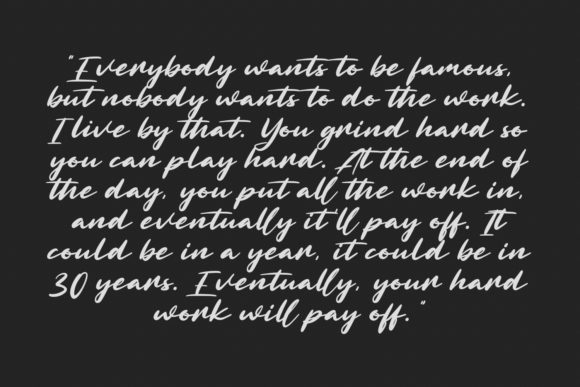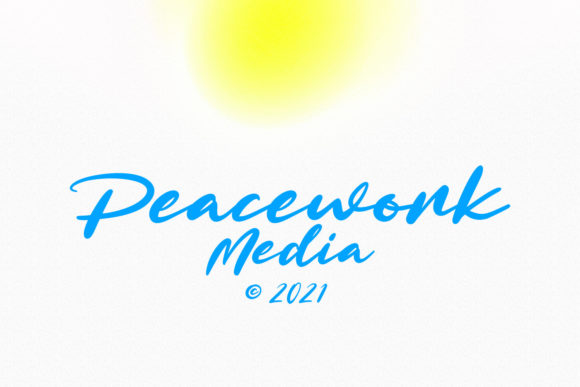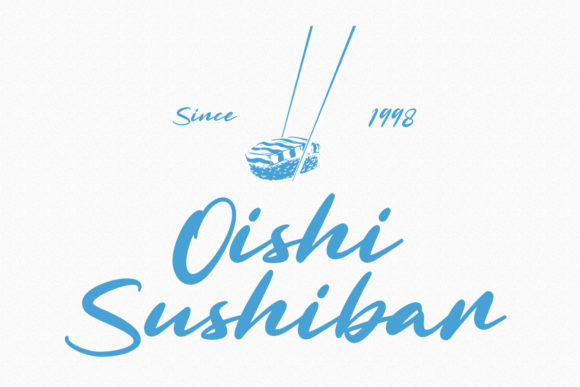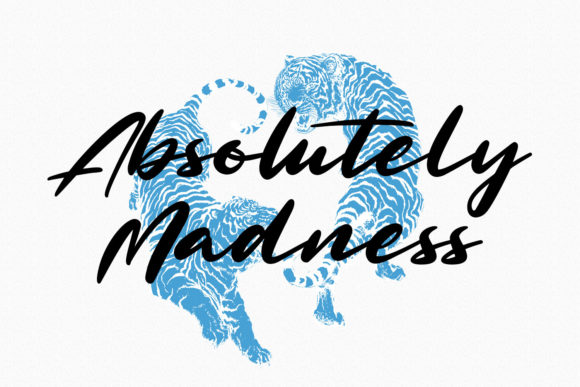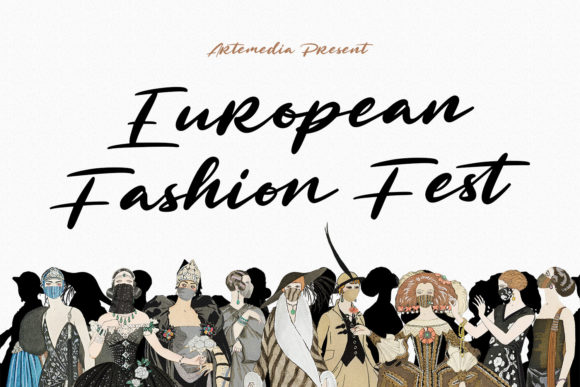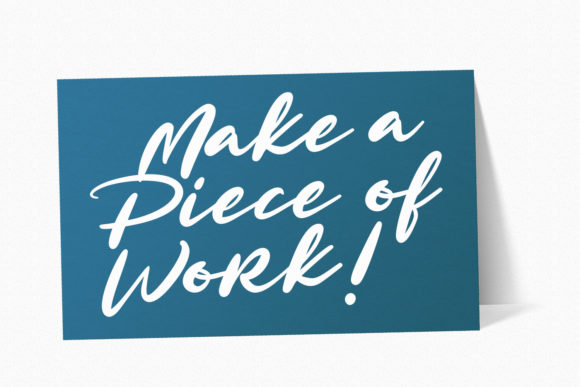
The Perfect Brushstroke: Unlocking the Power of Arttelost Script Font
There’s nothing quite like the thrill of bringing a creative idea to life. The blank page stares back at you, a canvas waiting to be filled with color, texture, and personality. And then, it happens – the perfect brushstroke, the perfect word, the perfect phrase. It’s a moment of pure magic, and one that designers know all too well.
For those seeking to add a touch of whimsy and elegance to their designs, the Arttelost Script Font is a game-changer. This trendy handwritten font is the perfect tool for bringing a unique voice and perspective to any project. Whether you’re working on a branding campaign, a social media post, or a marketing brochure, the Arttelost Script Font has the potential to elevate your creations and leave a lasting impression.
Key Features of Arttelost Script Font
- Unique Characteristics: Arttelost Script Font features a beautiful, hand-written style with unique flourishes and subtle variations in letterforms, making it perfect for creative and artistic projects.
- Font Style: Arttelost Script Font comes in two styles: Regular and Bold, allowing for versatility and flexibility in design applications.
Arttelost Script Font Review
Arttelost Script Font is a beautiful, elegant font that can add a touch of sophistication to any design. ✨ I love its fluid, handwritten feel, which makes it perfect for invitations, quotes, and other creative projects. The font is highly customizable, with a wide range of styles and sizes available, making it easy to achieve the desired look.
- ✨ Elegant, handwritten feel that adds a touch of sophistication to any design
- ✨ Highly customizable, with a wide range of styles and sizes available
- ✨ Perfect for invitations, quotes, and other creative projects
However, there are a few limitations to consider. ⚠️ The font can be quite dense, which may make it difficult to read in certain contexts. Additionally, the font may not be suitable for body text, as it can be quite busy and overwhelming.
Overall, I think Arttelost Script Font is a great addition to any designer’s toolkit. While it may have its limitations, it’s perfect for creative projects where a touch of elegance and sophistication is needed.
- ⚠️ Can be quite dense, making it difficult to read in certain contexts
- ⚠️ May not be suitable for body text, due to its busy and overwhelming feel
Practical Application Guide for Arttelost Script Font
Arttelost Script Font is a beautiful, cursive font perfect for:
- Quote and inspirational graphics
- Decorative text overlays in photography
For the best results, use Arttelost Script Font in conjunction with a clean, modern sans-serif font for maximum contrast and visual appeal.
Alternatives to Arttelost Script Font
The Arttelost Script Font is a beautiful, elegant script font ideal for wedding invitations, branding, and other high-end designs. However, it may not be suitable for every project. Here are a few alternatives to consider:
Carolyna Pro is a luxurious, elegant script font perfect for high-end designs, such as luxury branding, wedding invitations, and fine art. It features a classic, sophisticated look with a touch of elegance. Compared to Arttelost Script Font, Carolyna Pro has a more refined, polished appearance, making it ideal for premium designs.
Alex Brush is a beautiful, elegant script font ideal for creative projects, such as branding, wedding invitations, and editorial designs. It features a classic, handwritten look with a touch of whimsy. Compared to Arttelost Script Font, Alex Brush has a more rustic, organic feel, making it perfect for projects that require a personal touch.